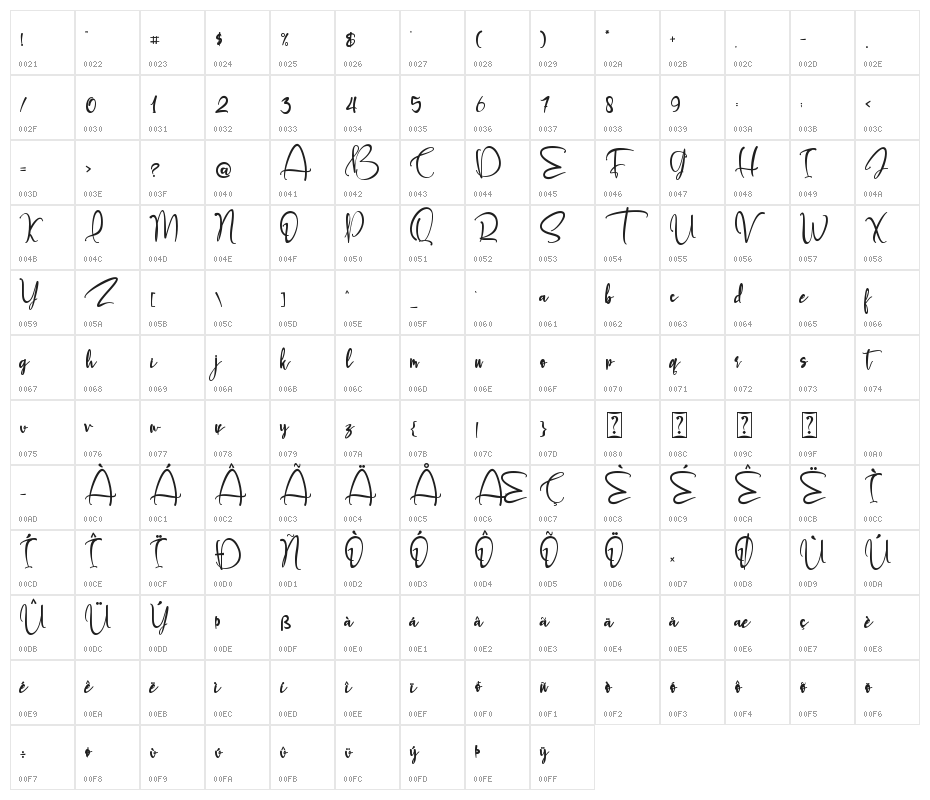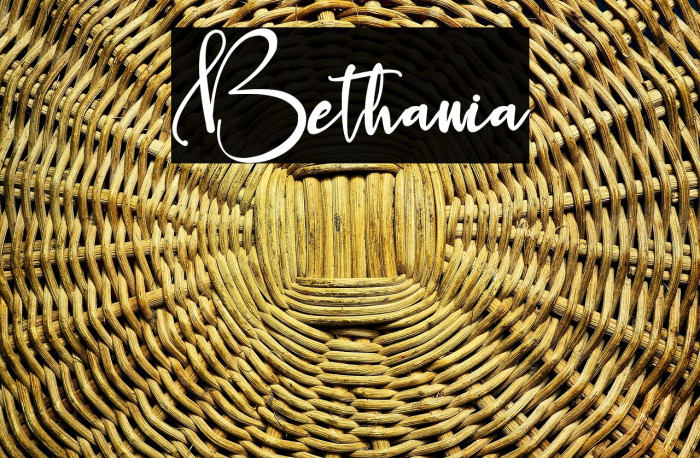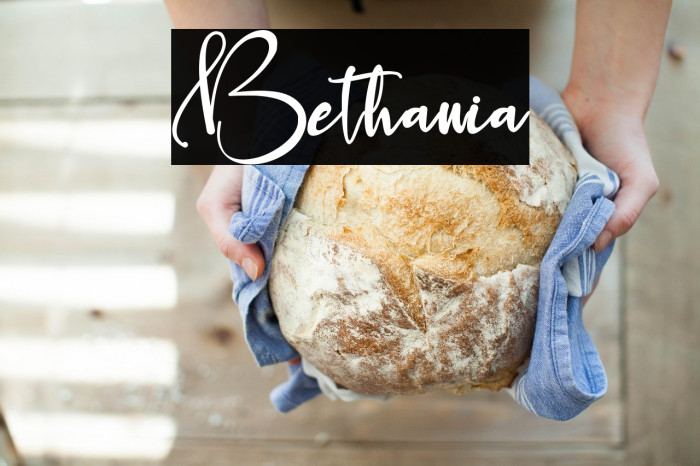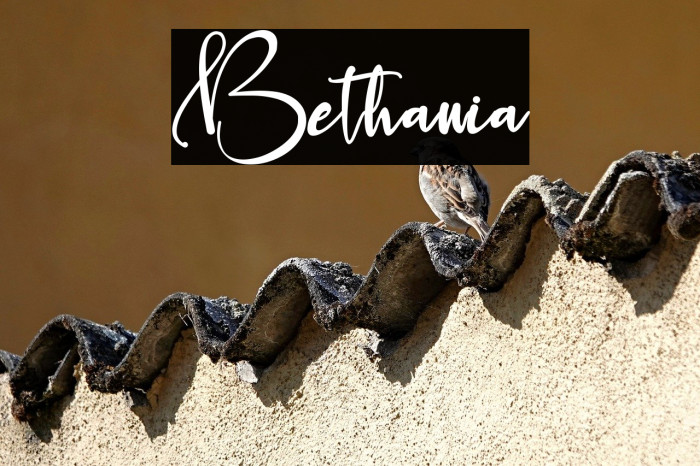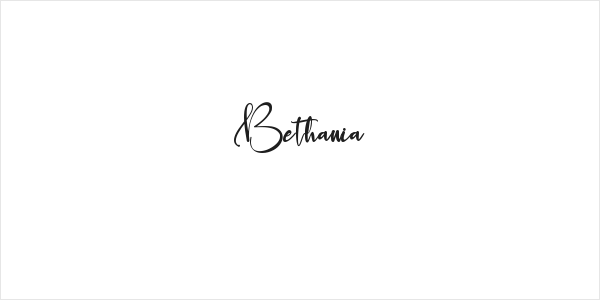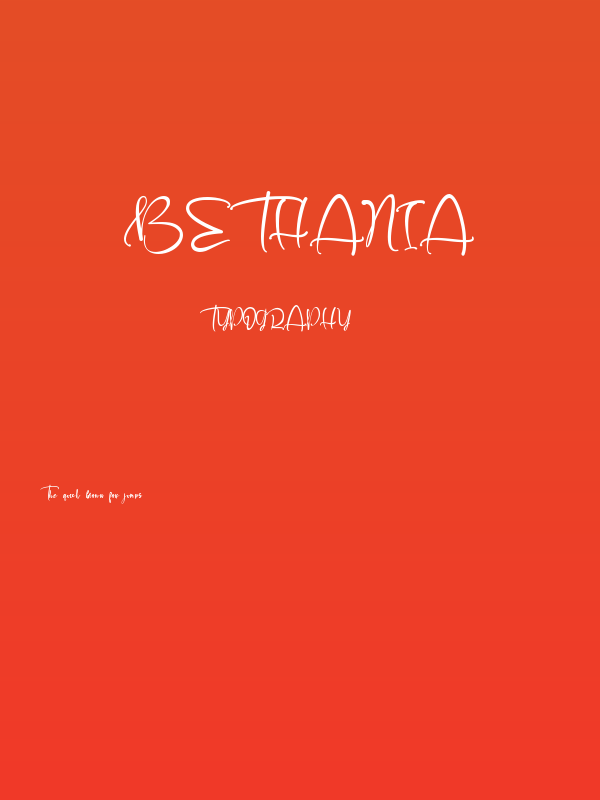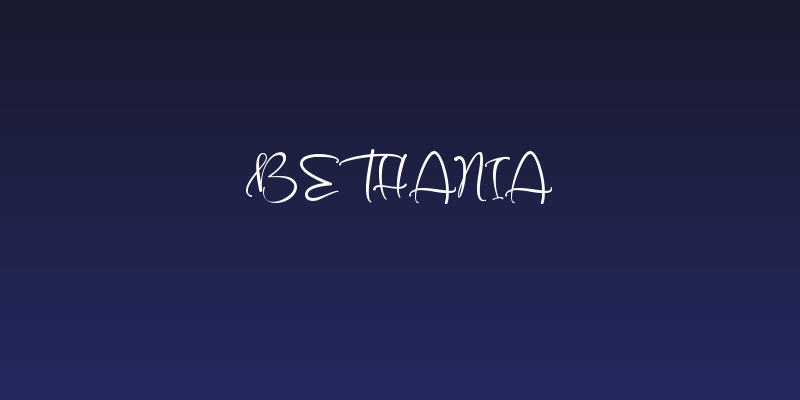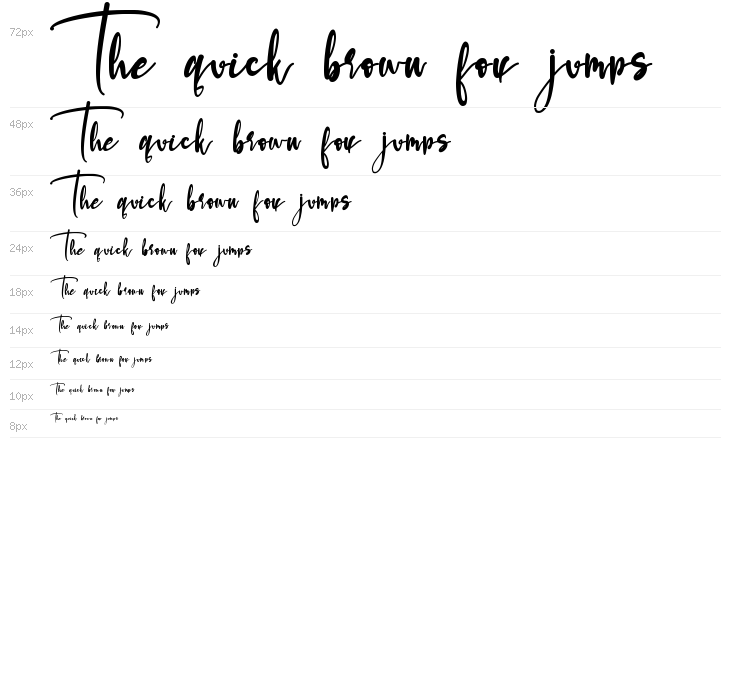
Bethania Font
Bethania Description
This font features a dynamic and expressive script style, characterized by its fluid and interconnected letterforms. The uppercase letters exhibit a playful and artistic flair, with varying stroke widths that add a sense of movement and elegance. The lowercase letters maintain a cohesive flow, enhancing readability while retaining a handwritten charm. The numerals are consistent with the overall style, offering a balanced and harmonious look. Special characters are thoughtfully designed to complement the alphabet, ensuring versatility in various design contexts. This font's unique personality makes it suitable for creative projects that require a touch of sophistication and individuality.
| Proposed Projects | Ideal for wedding invitations, branding, greeting cards, and artistic posters. |